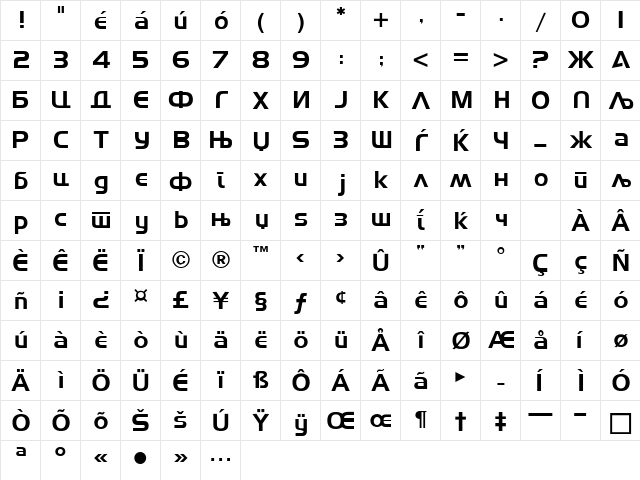
Alfa Normal
Design Context for Alfa Typeface
Alfa offers clean, dependable letterforms without strong stylistic allegiance, making it a practical choice for designers who need flexibility.
Pro Tip: Use Alfa in both headline and body roles to test its range before committing to a single application.